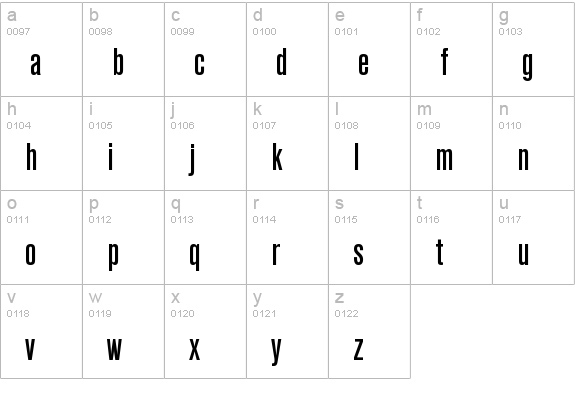
Ancona-Cd-Regular is the standard, neutral variant in the Ancona typeface family \xE2\x80\x94 well suited to general body text, paragraphs, and standard typographic work.
Ancona-Cd-Regular is a versatile and modern font that is perfect for a wide range of design projects. Its clean lines and balanced proportions make it easy to read and add a touch of sophistication to any design. This font is ideal for use in branding, advertising, web design, and more. Best of all, Ancona-Cd-Regular is completely free to download at FontsMarket.com, making it accessible to designers of all levels. With its bold yet elegant style, this font is sure to make a statement in your next project. Don't miss out on the opportunity to add Ancona-Cd-Regular to your font collection today!